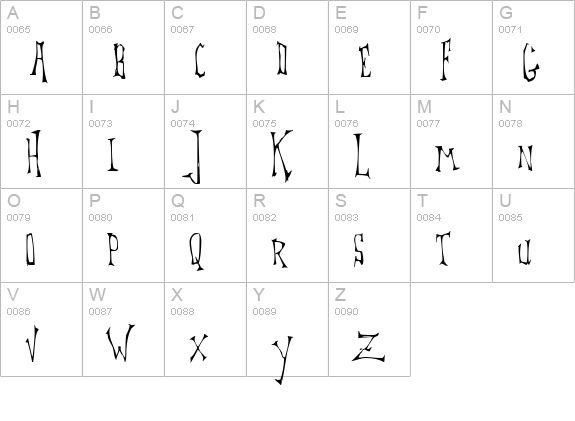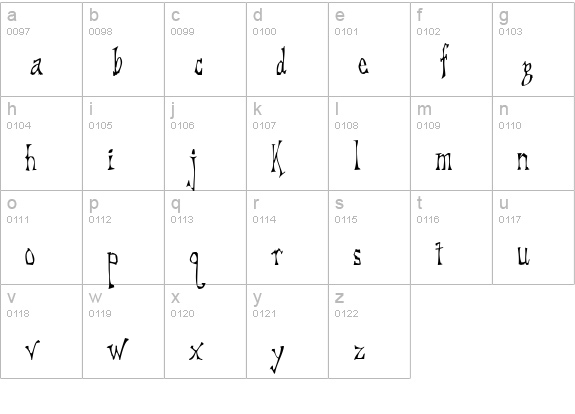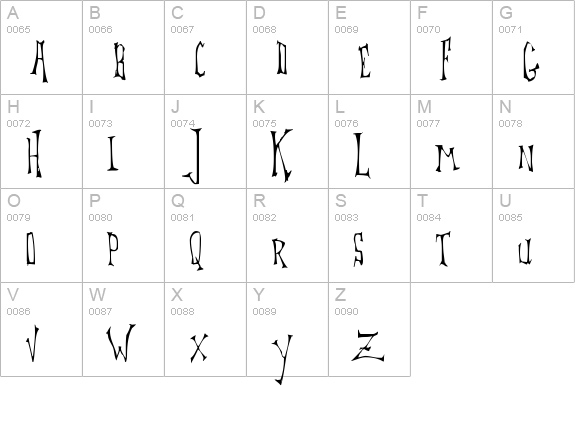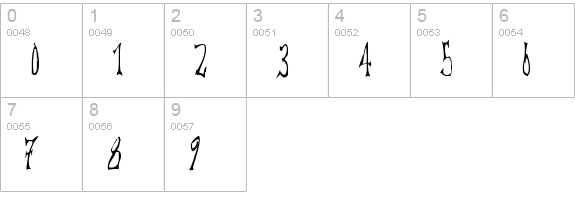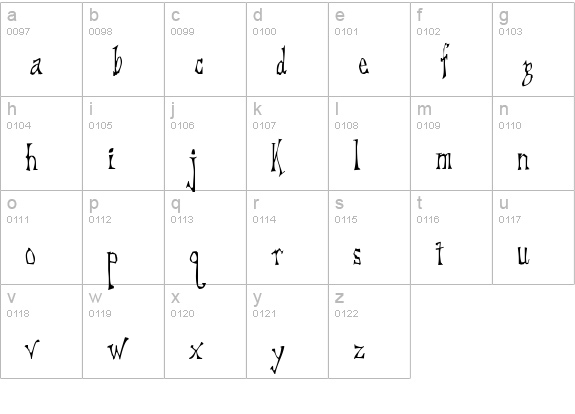
DreadLox Font Details
Introducing DreadLox font, a captivating and versatile typeface that exudes a sense of mystery and sophistication. With its intricate letterforms and unique design, DreadLox is sure to make a bold statement in any project. Whether you're looking to add a touch of edginess to your branding, create eye-catching headlines, or elevate your design projects to the next level, DreadLox has got you covered. What's even better is that DreadLox is completely free to download at FontsMarket.com. Yes, you read that right - this stunning font is available at no cost, making it accessible to all designers and creatives looking to enhance their work with a touch of elegance and flair. Don't miss out on the opportunity to add DreadLox to your font collection today and unleash your creativity like never before.